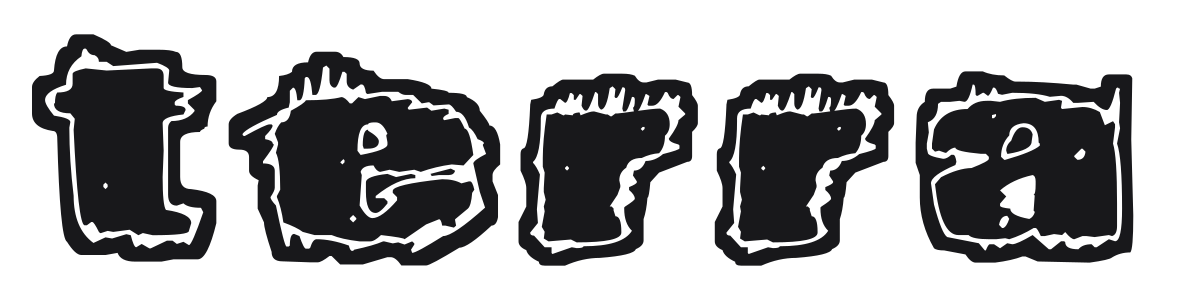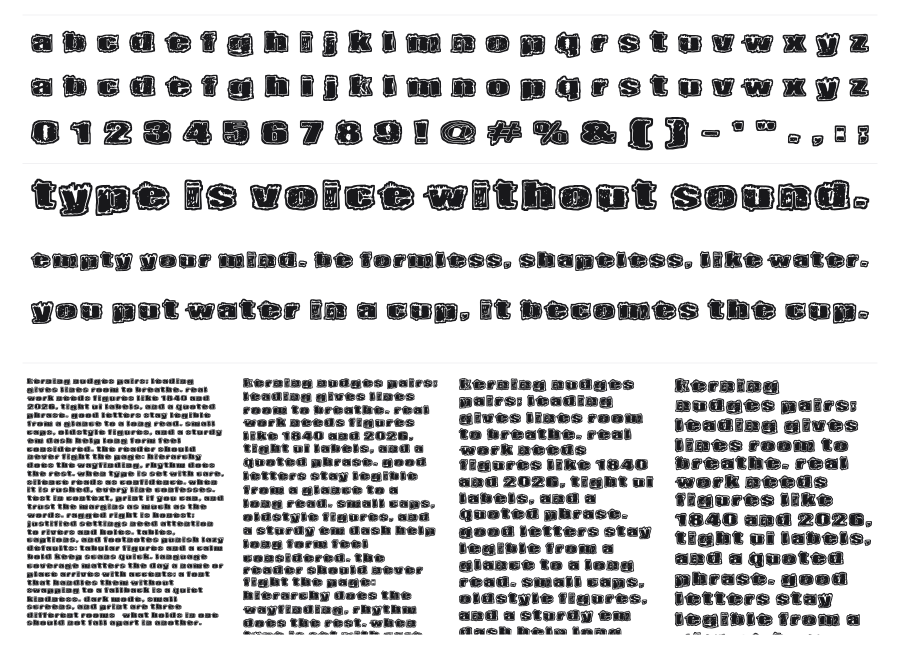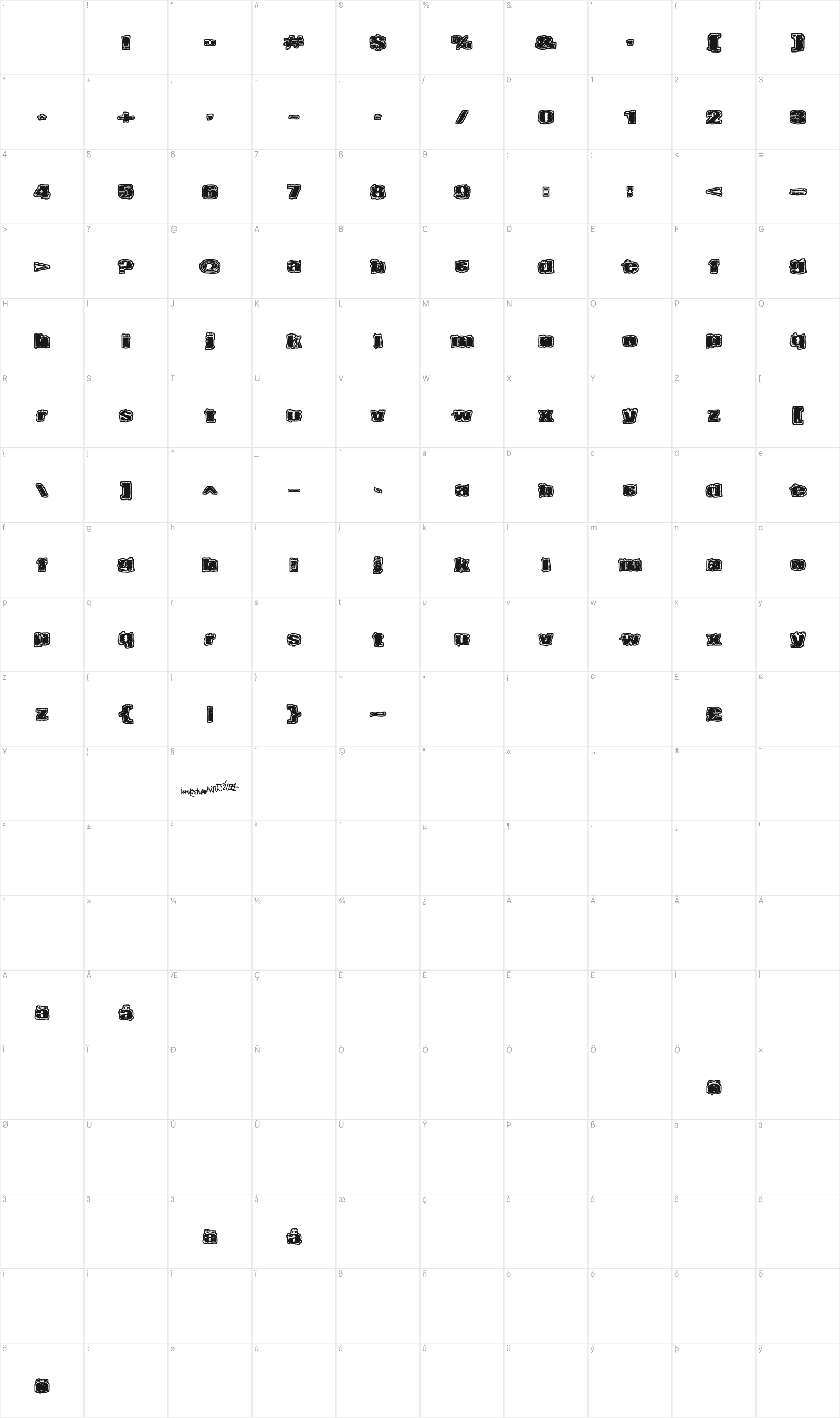
Terra
Terra is a heavy rounded display font wrapped in dense distressed texture, as if each character has been stamped through aged, cracked rubber. The thick outline construction combined with the eroded fill gives it a woodblock or linocut quality that reads as authentically worn rather than digitally filtered. It carries weight and attitude at large sizes, suited to posters, band logos, and anything that needs a raw, handmade edge.